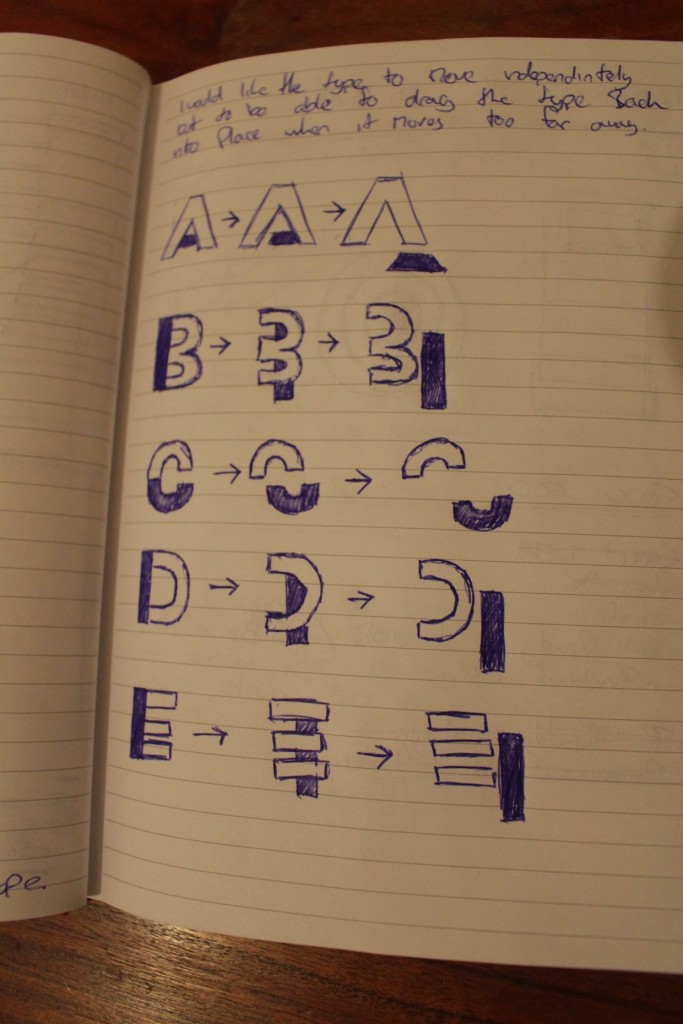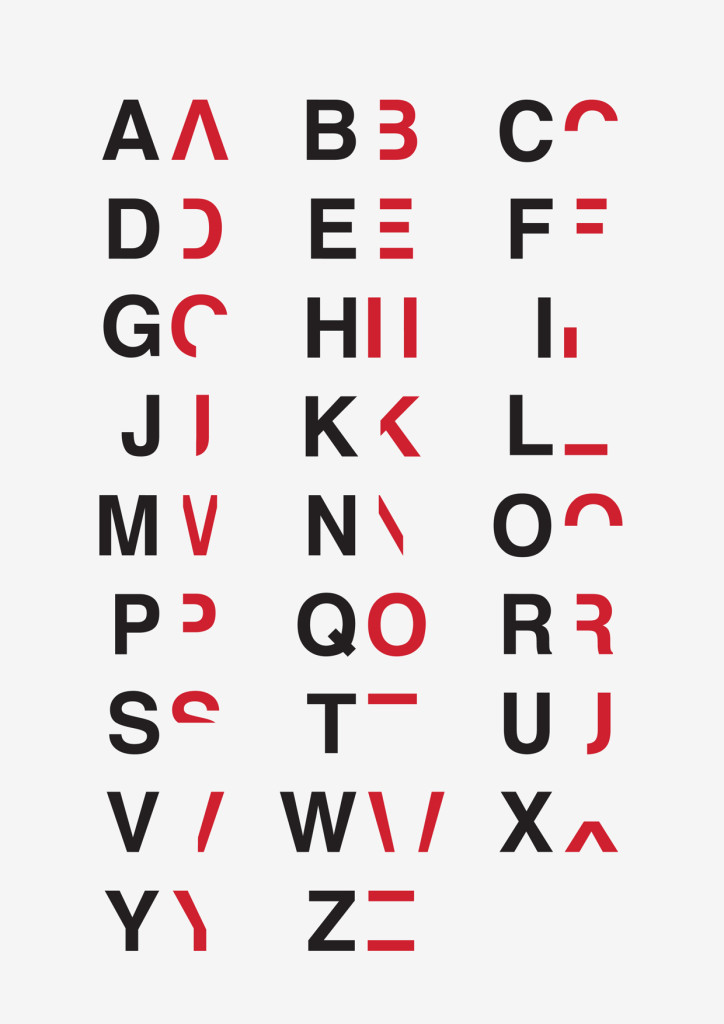
How readable is your hand lettering?
How Readable Is Your Hand Lettering - Lettering TutorialHand lettered words are not only supposed to look interesting, but they also need to be readable. You could spend hours making a cool piece of lettering, but if it’s hard to read, then your hard work could all have been for nothing.
Hard to read falls within two categories when it comes to lettering, individual letters can be hard to read, or the layout of the lettering can make a phrase or sentence hard to read. Sometimes both of these things can happen at once, making the lettering super difficult to understand.
When beginning hand lettering there’s a good chance at least some of your lettering practice will be hard to read. This is because it does take time to get the shape of letters right, and to get spacing right, but to also learn about the order our eyes see things in when we read.
Designer Daniel Britton intentionally created an alphabet that would make reading a challenge for a college project. He wanted to bring more awareness to Dyslexia, and provide an example of what it’s like for a dyslexic person to read. He took away parts of letters to create a whole new alphabet that slows the reading pace of a non-dyslexic person significantly.
Daniel Britton Dyslexia Font Design
Think about how frustrating it is having to work out what is being quoted in the image below. This is definitely not something you want people viewing your lettering to feel, unless that’s the aim of your project.
Daniel Britton Dyslexia Font Poster
Daniel has made quite big changes to the alphabet to create his lettering project, and your work might not include such significant changes as that. It is however always important to consider whether others will be able to read your work without too much difficulty. This doesn’t rule out being able to experiment with hand lettering, but you should be considerate of others. People are also often always in a rush nowadays, and if they have to spend more than a few seconds working something out, they’re likely to move on. Some will enjoy the challenge of decoding a piece of lettering, but it’s not everybody’s cup of tea.
Daniel Britton Dyslexia Font Alphabet
Sometimes it can be difficult to tell if something is hard to read if you’ve been working on it a while. In those cases step back, take a break for at least half an hour and come back to it. If you’re still not sure, you can always ask a friend or family member for their opinion.
When drawing your lettering out consider things like ‘Are these letters a little too squashed?’, or ‘Is this script a little too loose flowing?’ and ‘Does this phrase flow naturally, or have I got to hunt for the word that should come next?’ By just keeping thoughts like these in the back of your mind, you are not likely to run the risk of making your lettering hard to read.